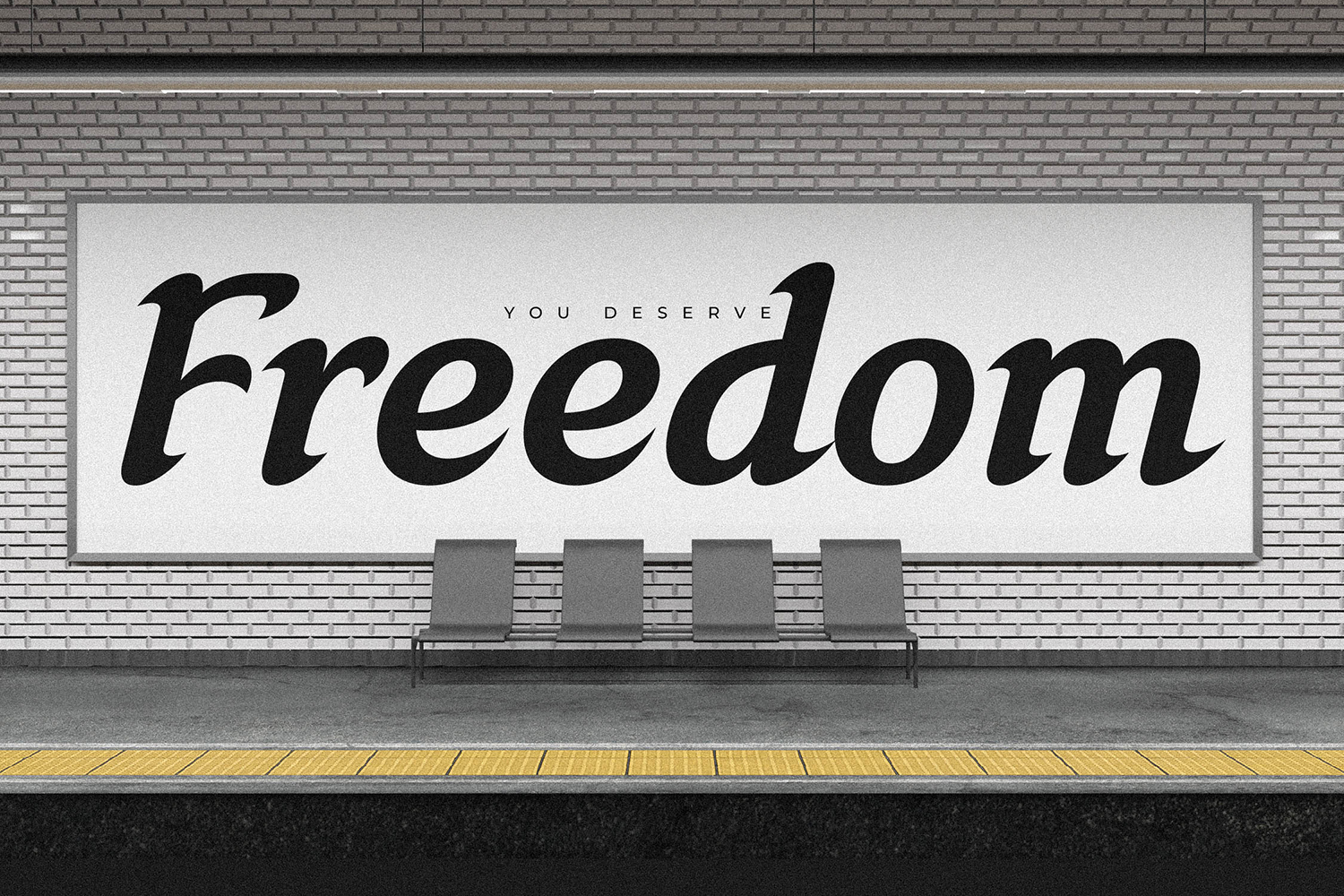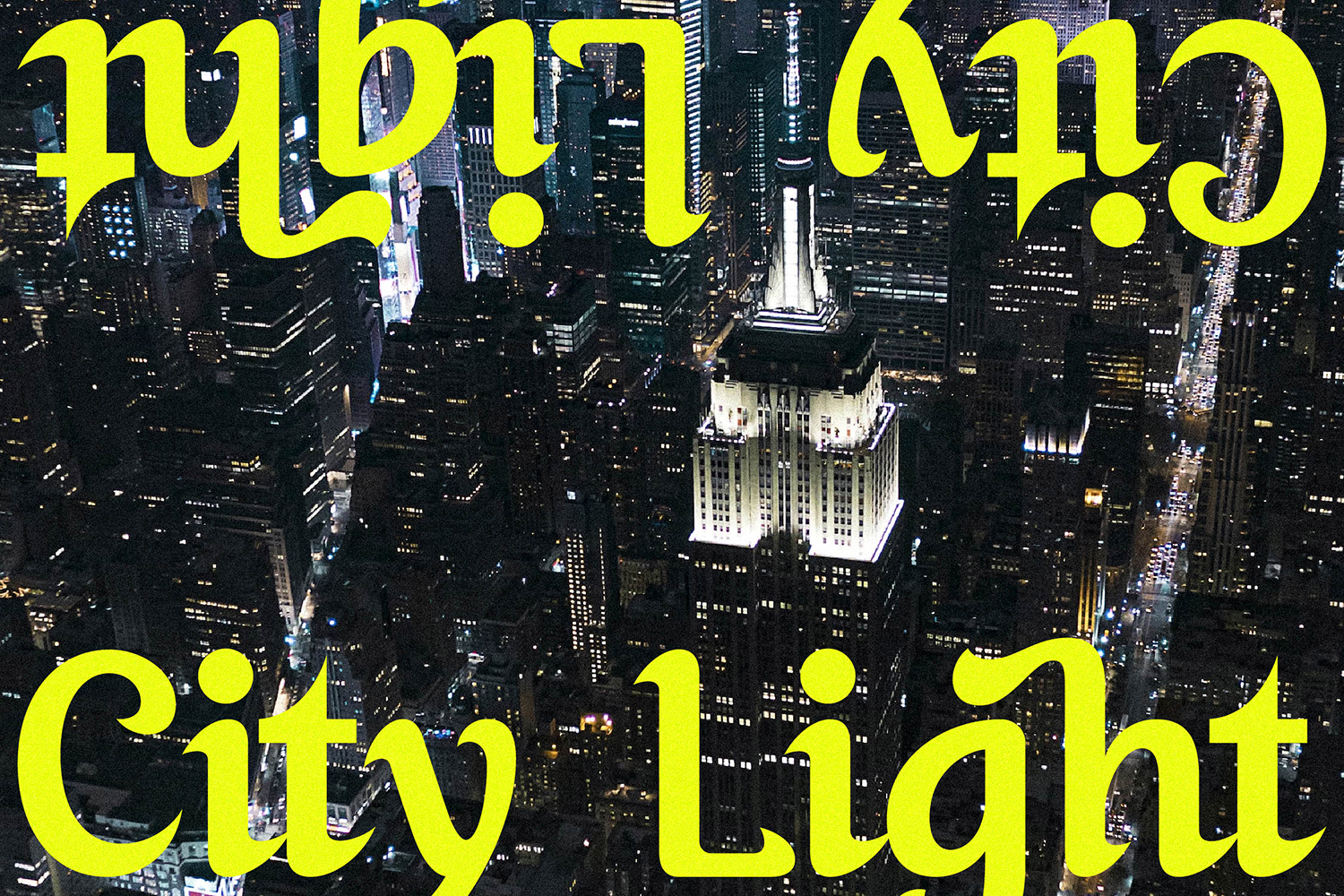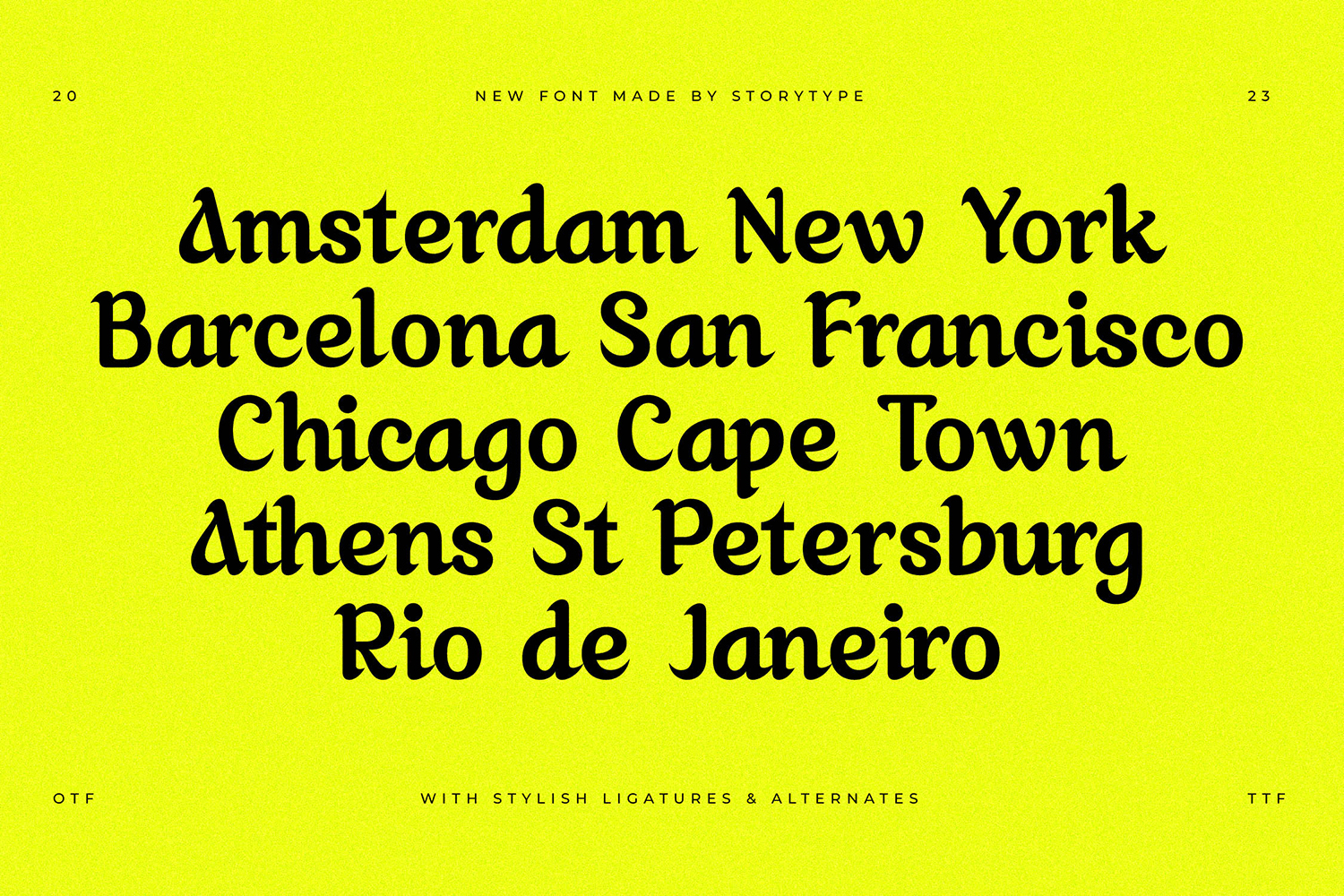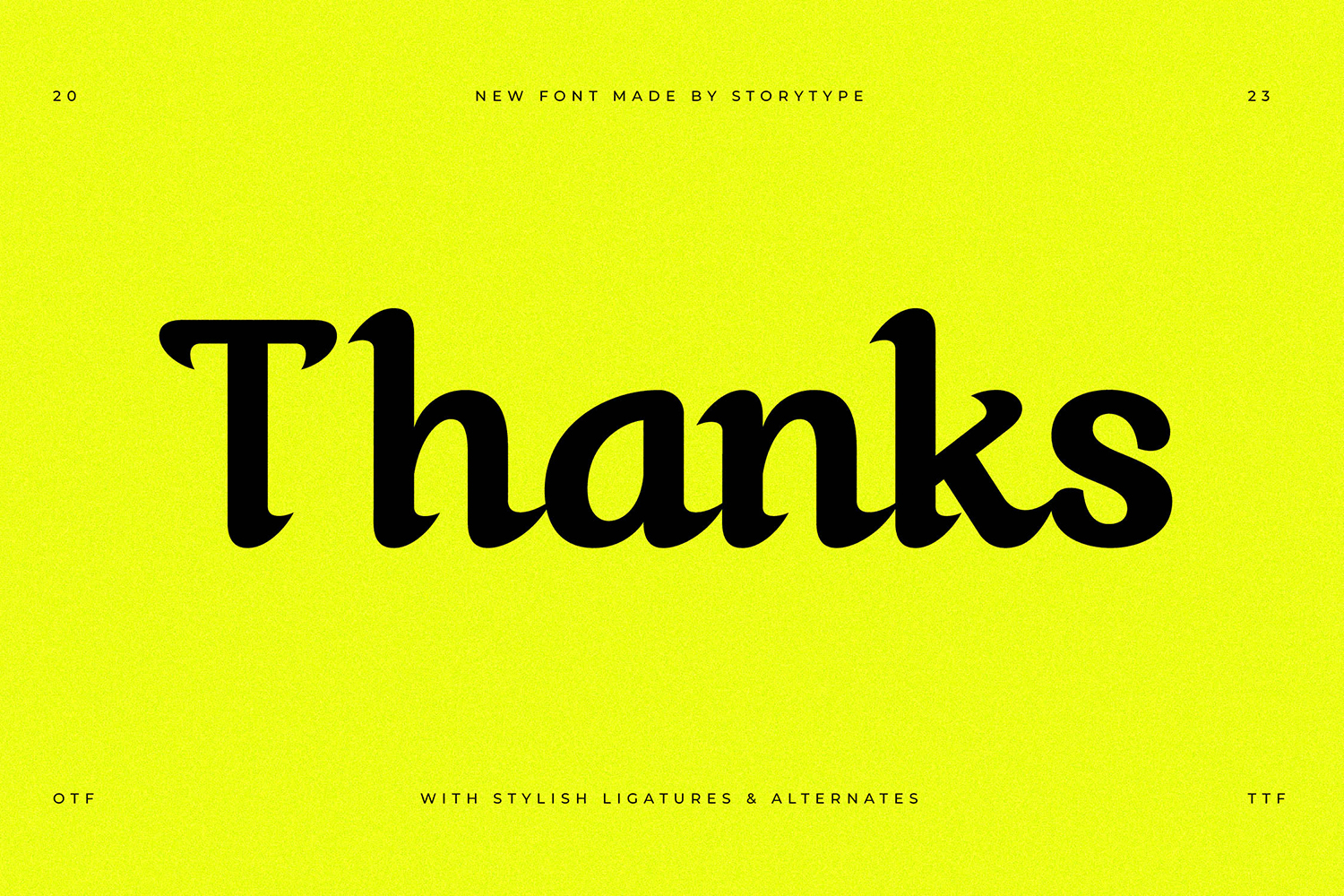
Akilvan Free Font
Akilvan Free Font is a modern and classic serif typeface that boasts a unique style and modern look. This font is perfect for those looking to add an elegant and luxurious touch to their design work, whether it be a logo, book or movie title design, fashion brand, magazine, clothing, lettering, quotes, and much more. With its sleek and sophisticated design, the Akilvan Free Font is a versatile option that can be used to enhance the visual appeal of any project. Download this font today and experience the beauty of its classic and modern aesthetic.